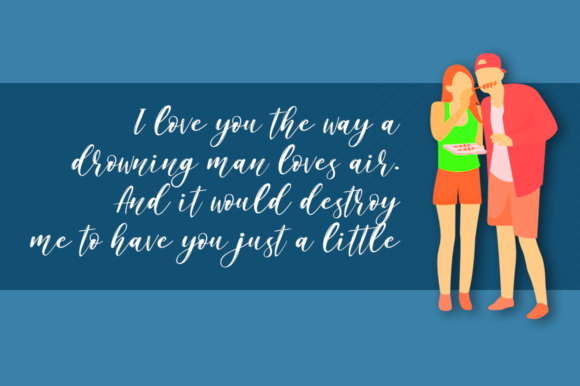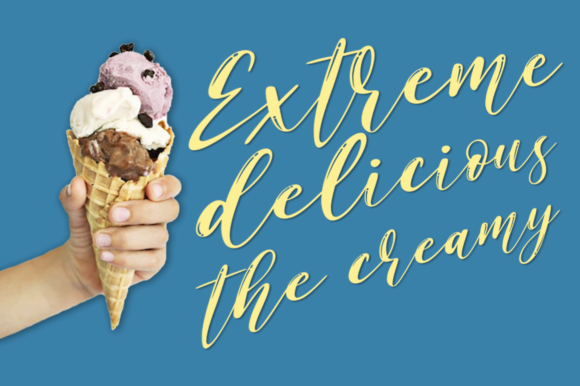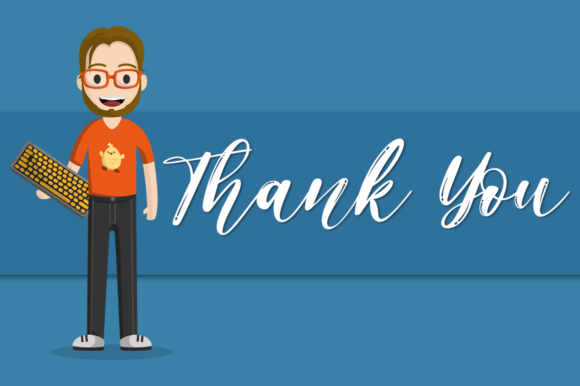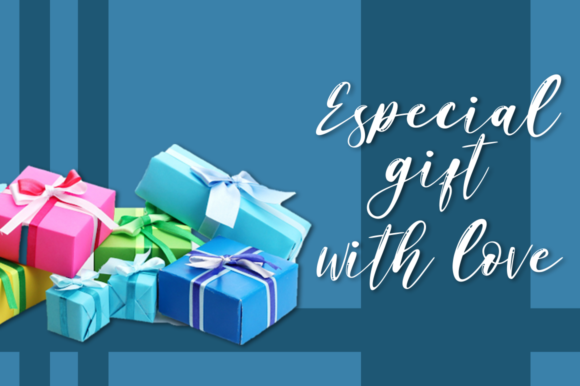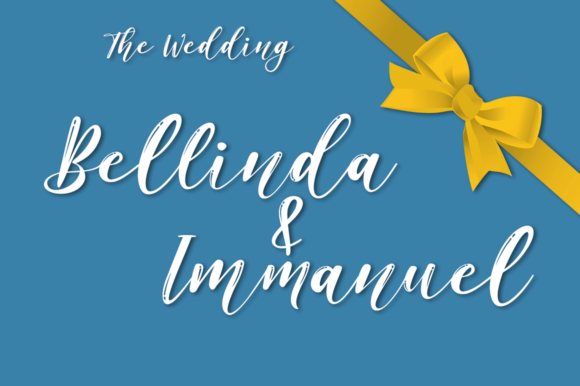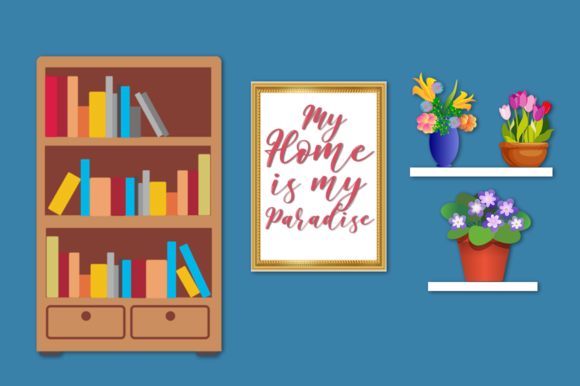
Discover the Timeless Charm of the Honeymoon Font
As a designer, there’s nothing quite like the thrill of stumbling upon a font that speaks to you on a deeper level. Perhaps it’s the way the letters seem to dance across the page, or the way it captures the essence of a particular moment or feeling. For me, that moment came when I first laid eyes on the Honeymoon Font – its elegant script and unique charm had me hooked from the very start.
Developed with love and care, the Honeymoon Font is more than just a pretty face – it’s a tool designed to help designers add a touch of sophistication and elegance to their work. Whether you’re creating a wedding invitation, a romance novel cover, or simply a special message for a loved one, this font is sure to inspire and delight.
Honeymoon Font Key Features
- Font Family: Honeymoon Font is a script font designed for wedding and wedding-related content.
- Font Size: The font comes in a single weight, making it suitable for various font sizes and styles.
- Resolution: Designed to work well at high resolutions, making it perfect for print and digital applications.
- Unique Characteristics: The font features elegant, flowing script lines and subtle flourishes, making it ideal for wedding invitations, stationery, and other romantic designs.
Honeymoon Font Review
As a designer, I was excited to dive into the world of the Honeymoon Font. I’ve gotta say, it’s a unique and lovely addition to any project. ✨ Here are some of the things that caught my eye:
- Playful yet elegant vibe: Honeymoon Font has a whimsical feel to it, making it perfect for projects that need a touch of romance and charm.
- Well-documented: The font comes with a comprehensive guide, making it easy to use and customize.
- Good legibility: The font is clear and easy to read, even at smaller sizes.
Of course, no font is perfect, and Honeymoon Font has some limitations ⚠️:
- Limited font styles: While the font is available in a few different weights, it’s not as extensive as some other font families.
- Not suitable for formal projects: While Honeymoon Font is lovely, it’s not the best choice for projects that require a more serious or professional tone.
Overall, I think Honeymoon Font is a great addition to any designer’s toolkit. It’s perfect for projects that need a touch of whimsy and romance, and it’s easy to use and customize. If you’re looking for a fun and playful font, Honeymoon Font is definitely worth checking out!
The Honeymoon Font is ideal for creating romantic and whimsical designs, such as wedding invitations, love letters, and valentines. To get the most out of the font, experiment with different font sizes, colors, and combinations to create unique and eye-catching designs.